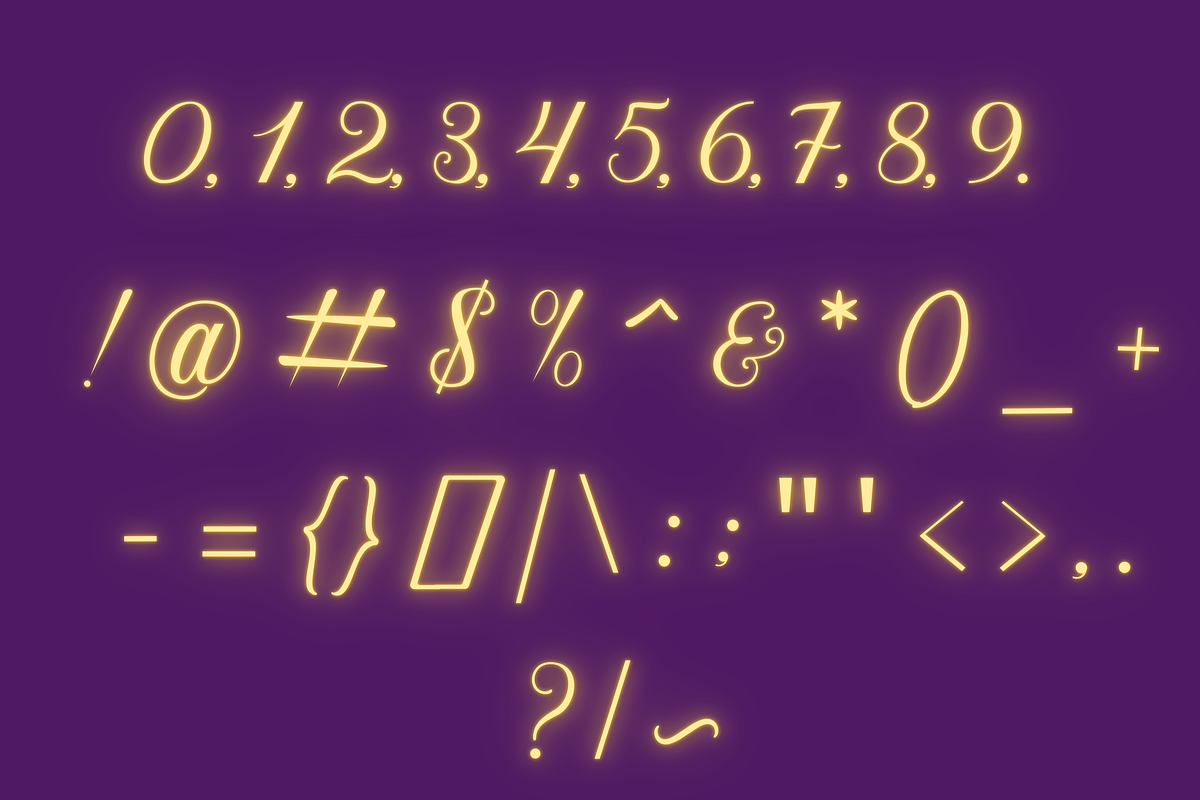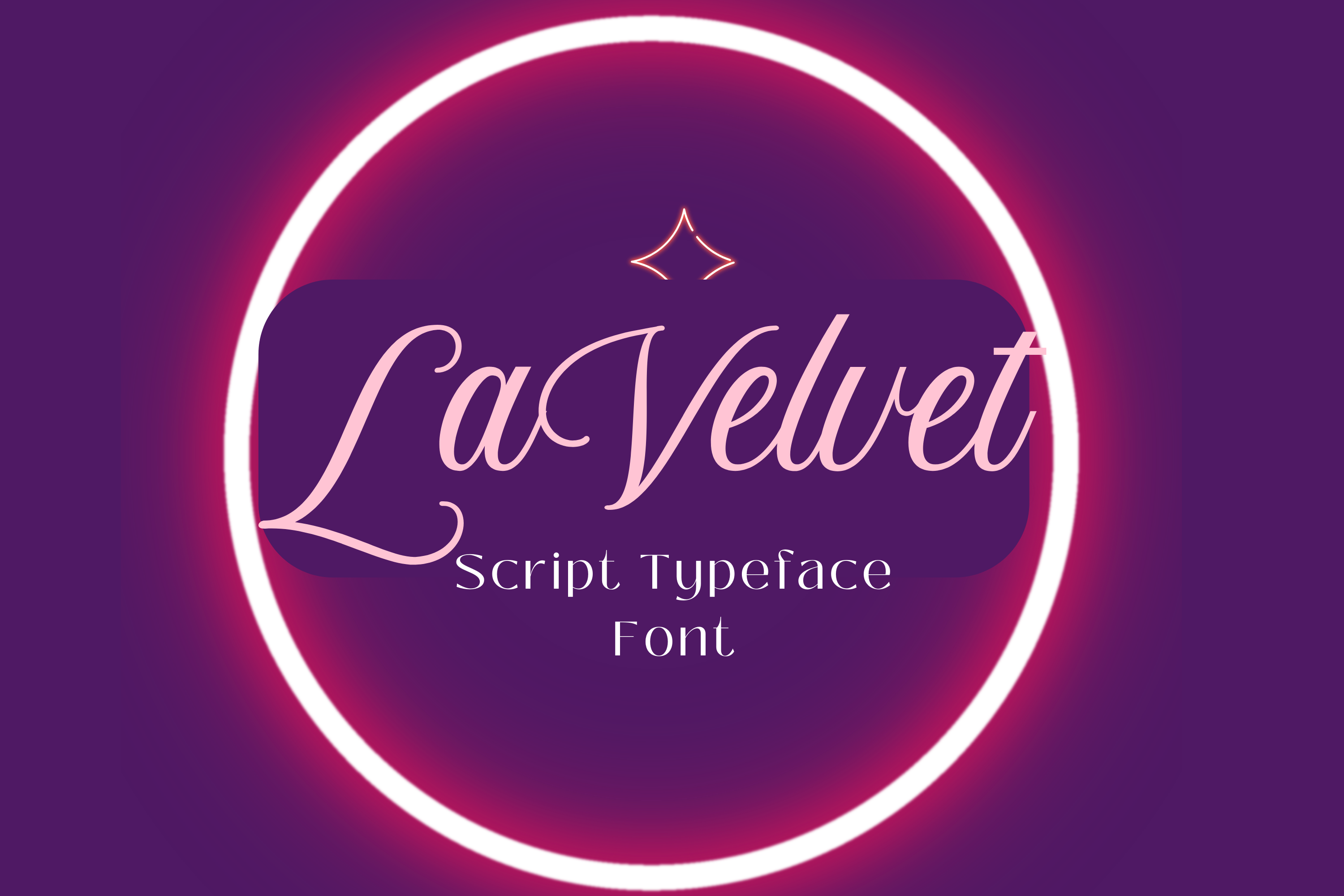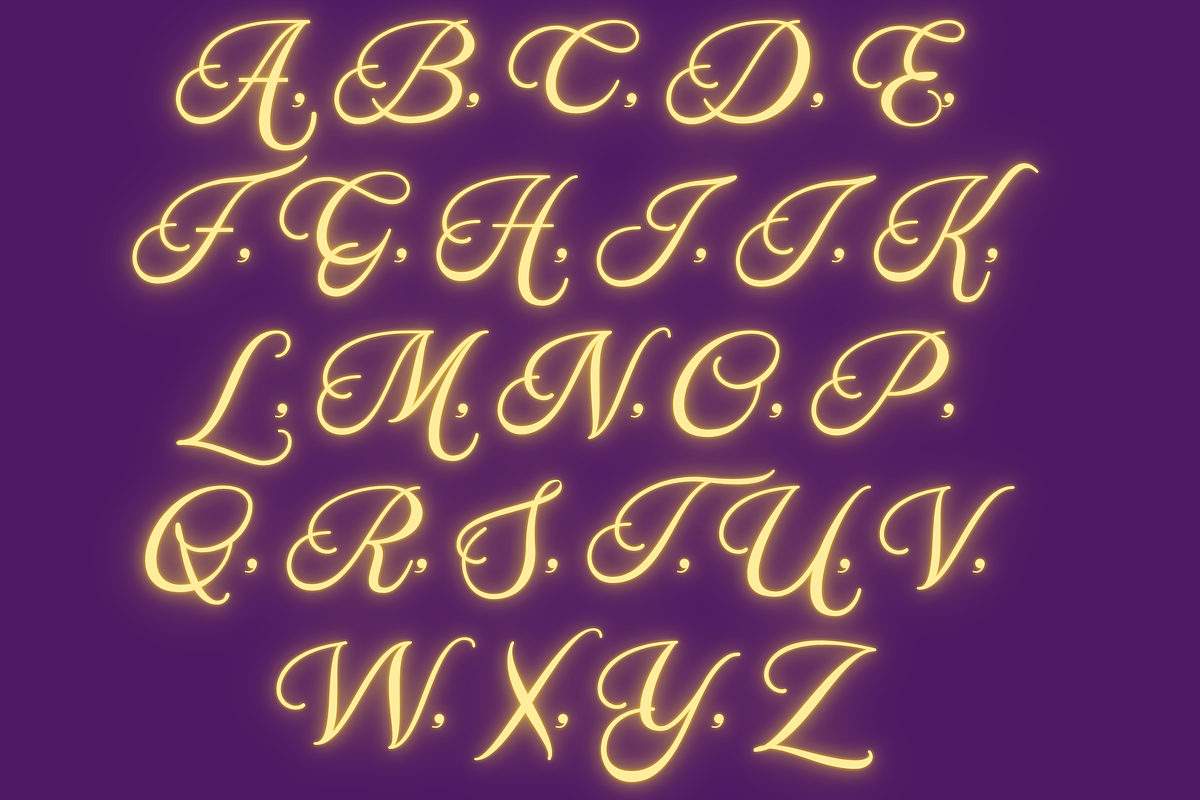
LaVelvet Elegant Script Font
LAVELVET HANDWRITTEN SCRIPT FONT
LaVelvet Handwritten Script Font is an elegant script typeface provided in OTF format. It includes a complete A–Z character set, numerals, punctuation, multilingual accents, and stylistic alternates for a sophisticated, hand-drawn aesthetic.
- Full character set with stylistic alternates
- Features: Stylistic alternates included